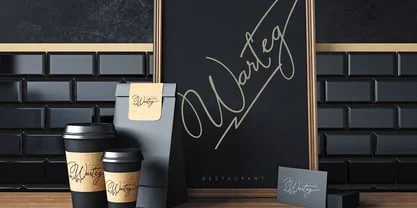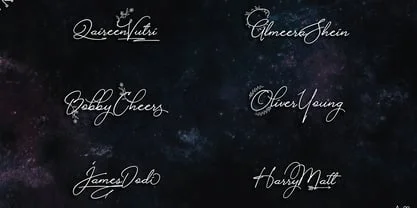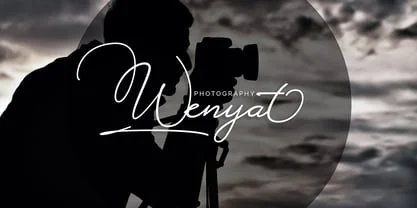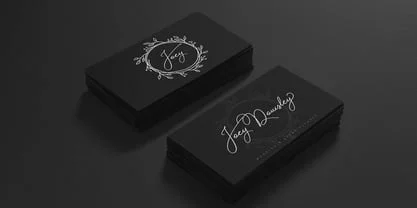
Alistair Signature Font
The Alistair Signature Font excels in distinguished design applications including aristocratic brand identities, heritage business logos, traditional wedding invitations, classic product packaging, refined corporate correspondence, prestigious certificates, elegant business cards, sophisticated portfolios, distinguished event signage, and timeless marketing materials. Its noble script style makes it perfect for projects requiring aristocratic elegance that communicates heritage and establishes distinguished brand positioning with audiences seeking traditional sophistication and classical refinement.
What makes the Alistair Signature Font genuinely exciting is its exceptional ability to capture the essence of British aristocracy through masterfully crafted letterforms. The font features flowing, regal strokes with distinguished flourishes and noble proportions that create a distinctly aristocratic appearance. Each character displays extraordinary attention to heritage detail with elegant curves, refined connections, and aristocratic spacing that give text a prestigious, hand-lettered quality reminiscent of royal correspondence. The font's noble character and classical rhythm create an atmosphere of timeless distinction while maintaining approachable sophistication.
The Alistair Signature Font family typically includes regular weight with comprehensive character sets, featuring uppercase and lowercase letters, numerals, punctuation, and international glyphs. The typeface often incorporates stylistic alternates, contextual ligatures, and aristocratic swashes that enhance its signature nobility. These additional elements provide designers with creative options to customize text appearance and achieve more natural-looking distinguished handwriting that reflects the font's aristocratic and heritage character.
This prestigious signature font captivates refined audiences through its remarkable balance of nobility and accessibility. Unlike pretentious fonts that can appear unapproachable, Alistair Signature Font embraces classical elegance while maintaining readability and professional polish. The font's aristocratic character makes it ideal for heritage brands, traditional businesses, and prestigious projects where conveying established credibility and timeless values is essential for building trust with discerning audiences who appreciate classical sophistication.
The Alistair Signature Font offers designers an exceptional opportunity to incorporate aristocratic elegance into their distinguished projects. From heritage luxury brands to traditional law firms, this font delivers the noble signature aesthetic that resonates with audiences who value established tradition and classical refinement. Its aristocratic appeal ensures your designs communicate timeless prestige while the signature styling adds distinctive personality that reflects noble heritage and distinguished sophistication in any application requiring classical typography excellence.